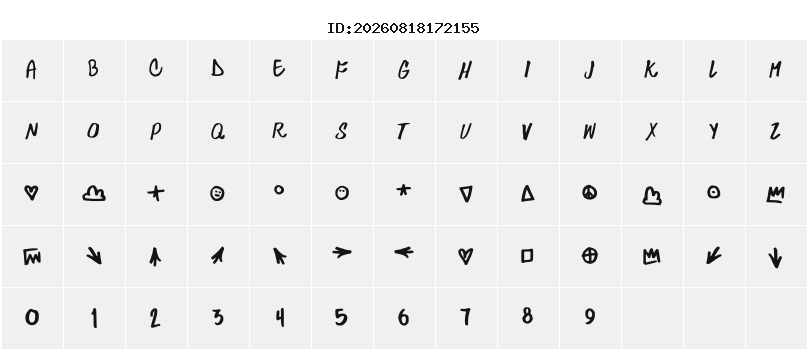
• Font Name: Skylarking
About Skylarking.ttf
Skylarking.ttf is a modern, elegant sans-serif font designed for ultimate readability and visual harmony. Perfect for branding, headlines, web design, and print materials.